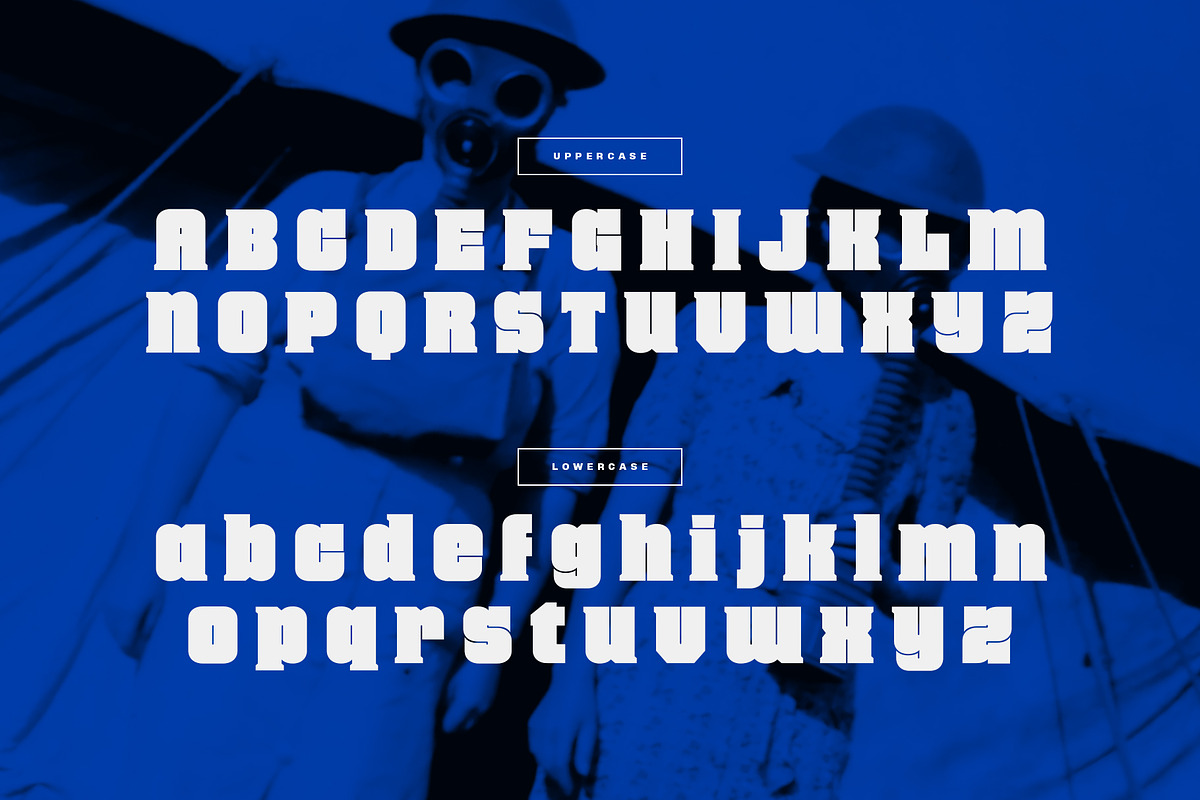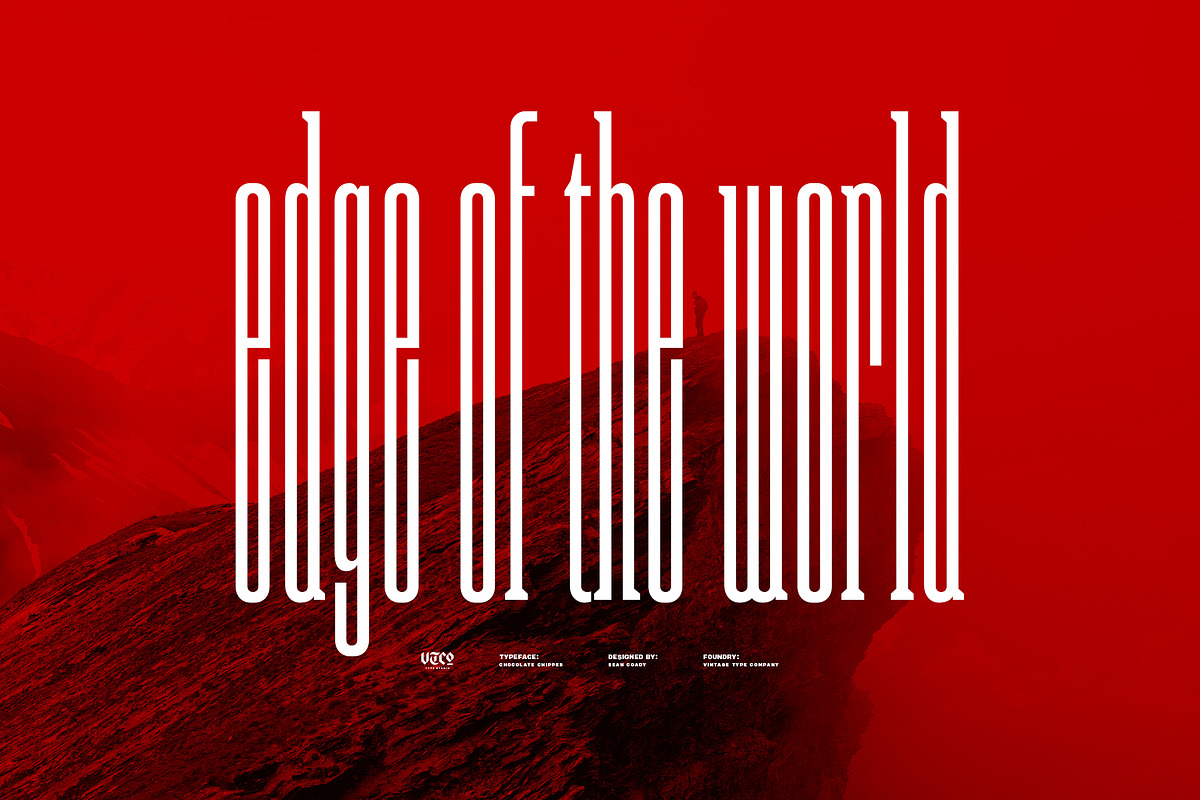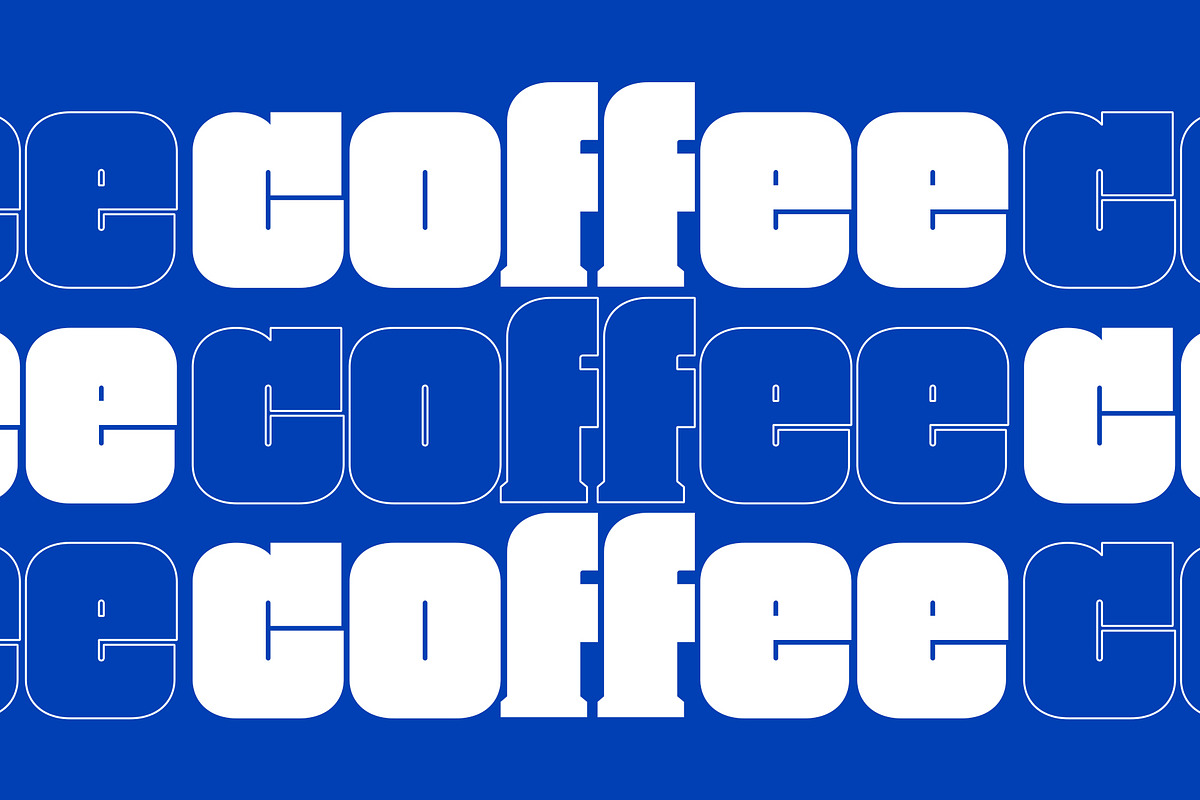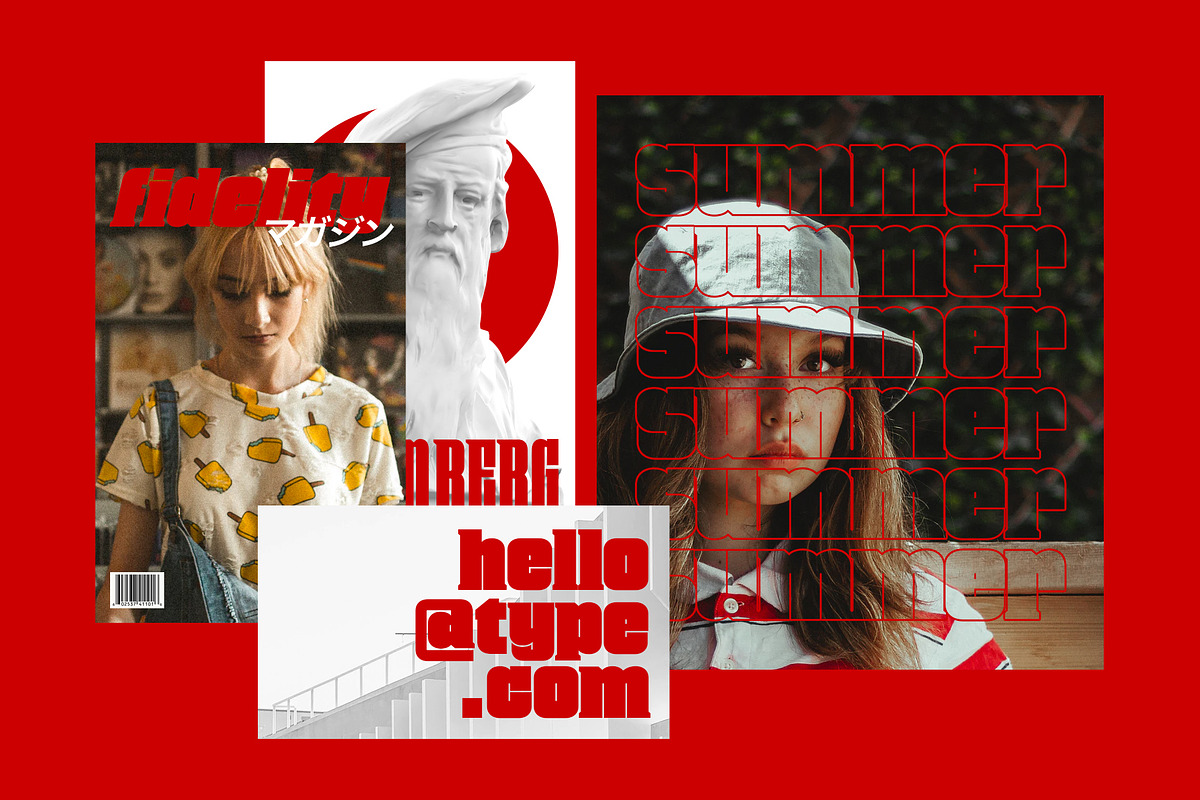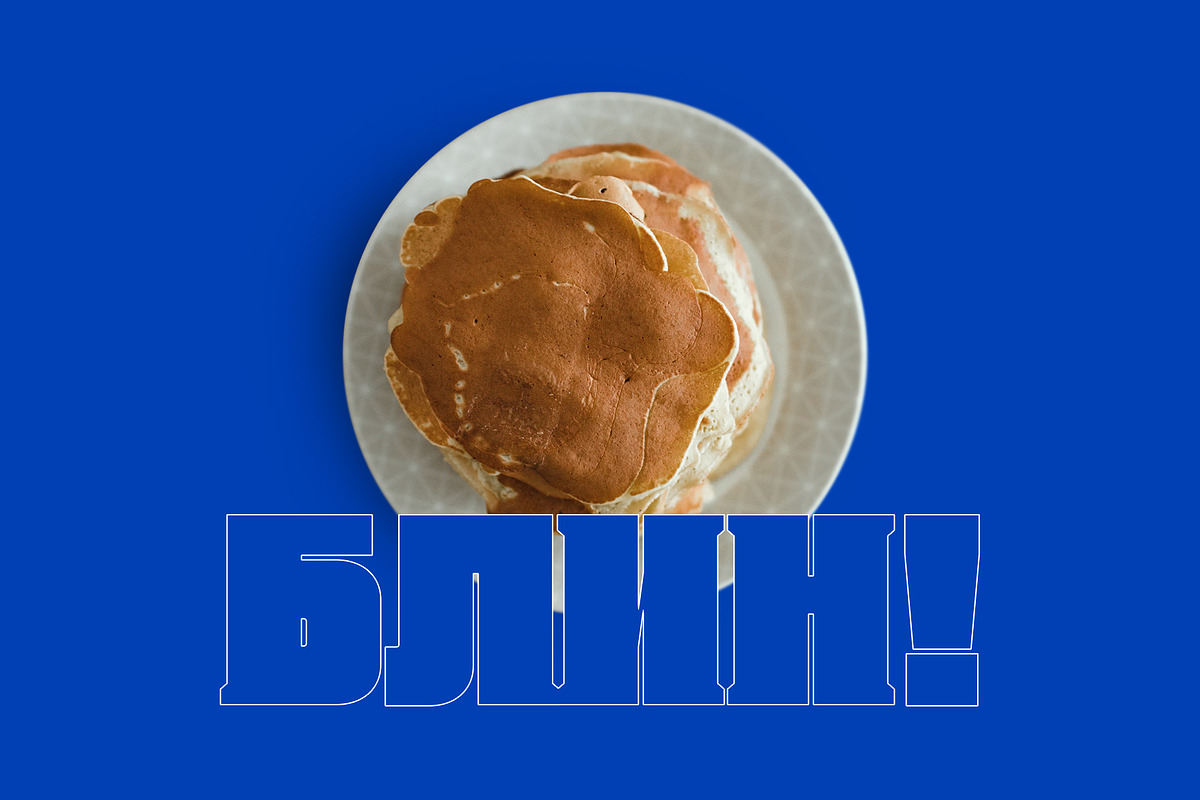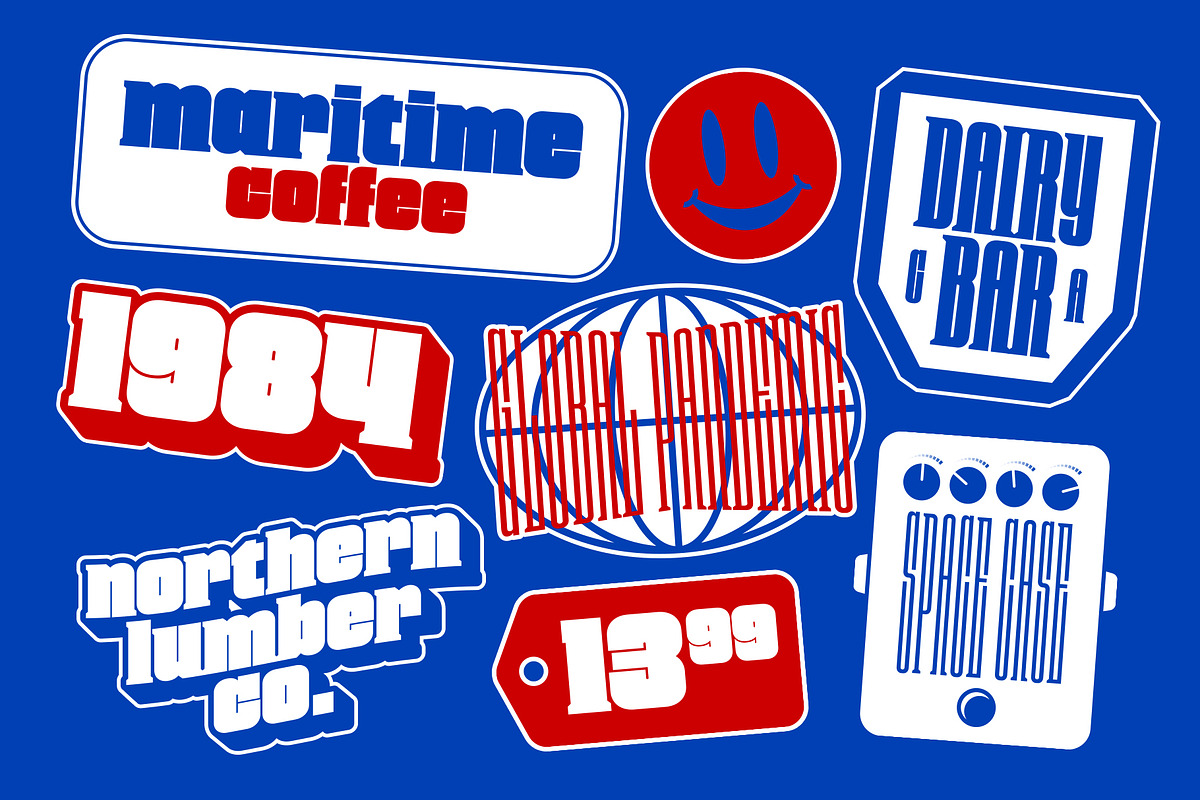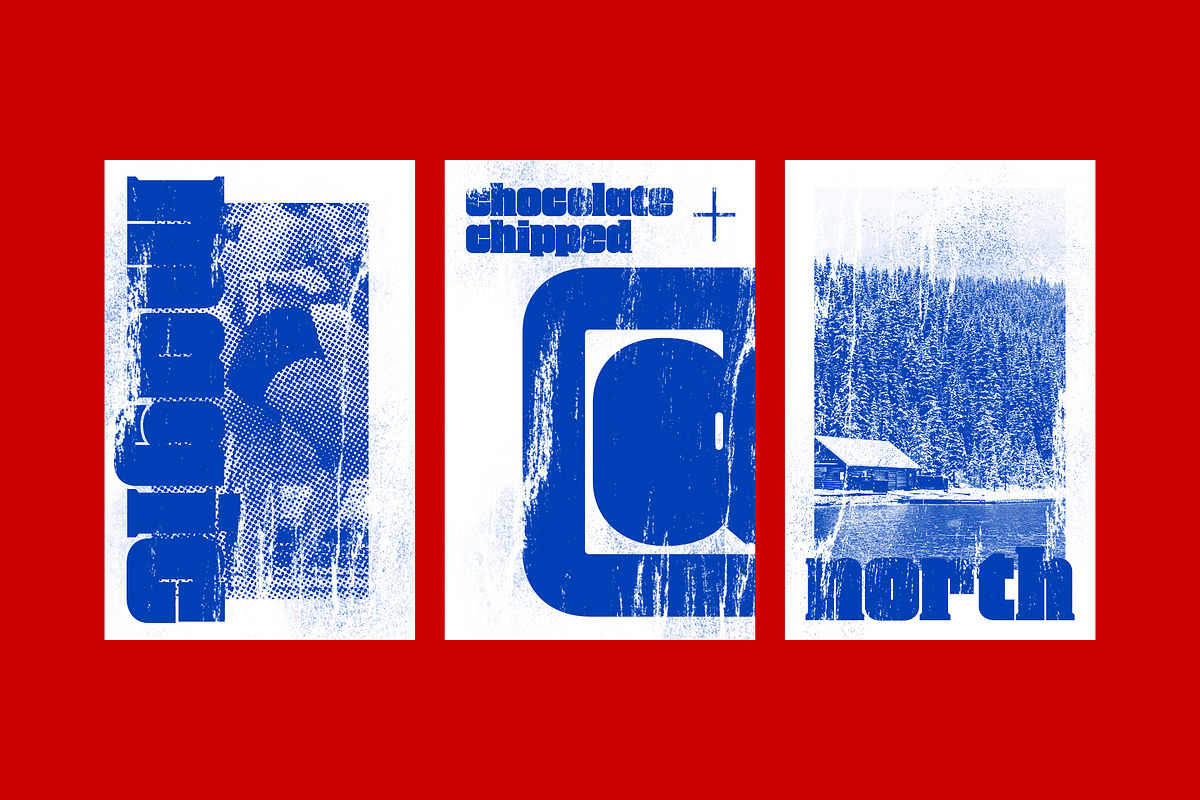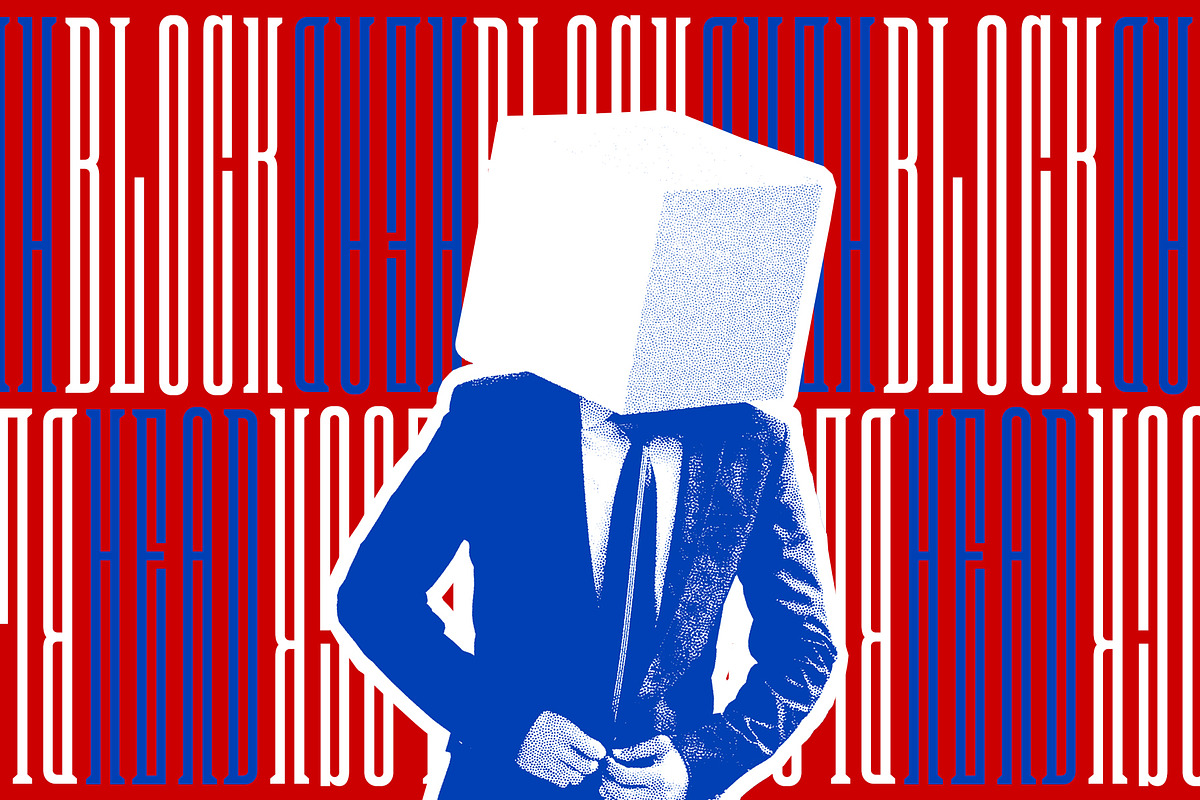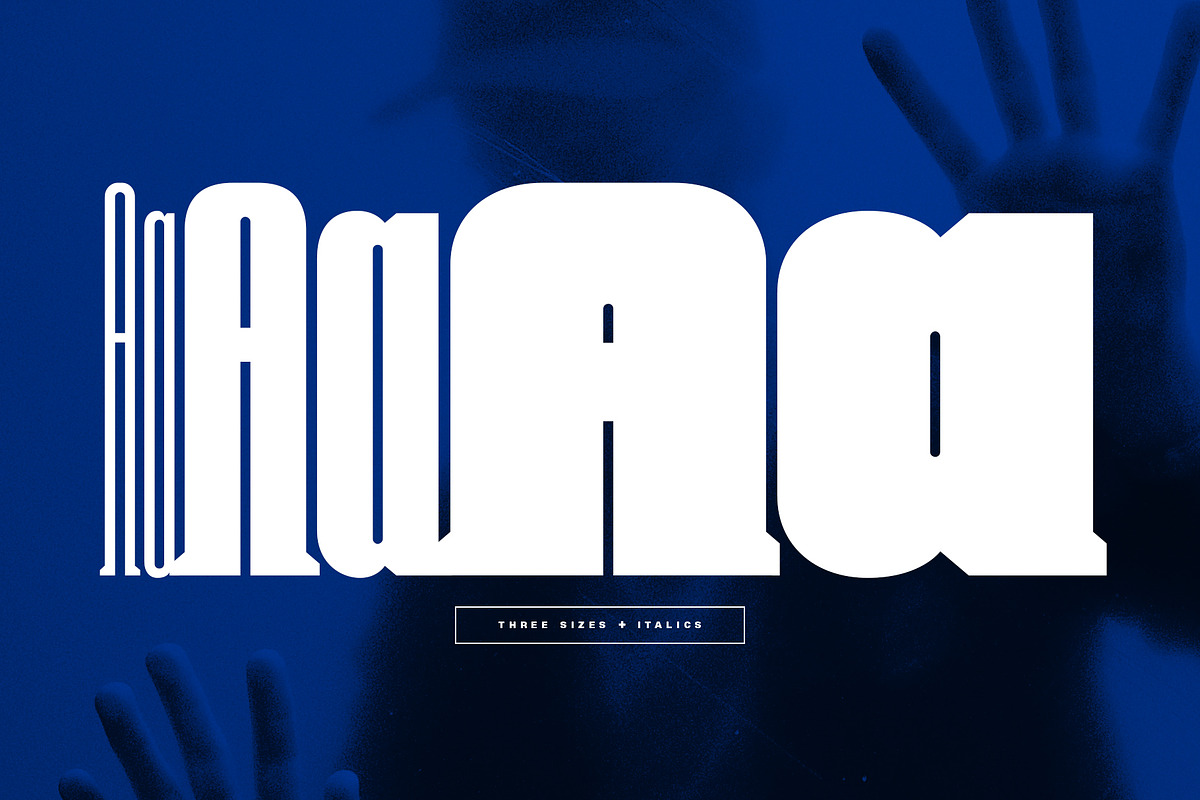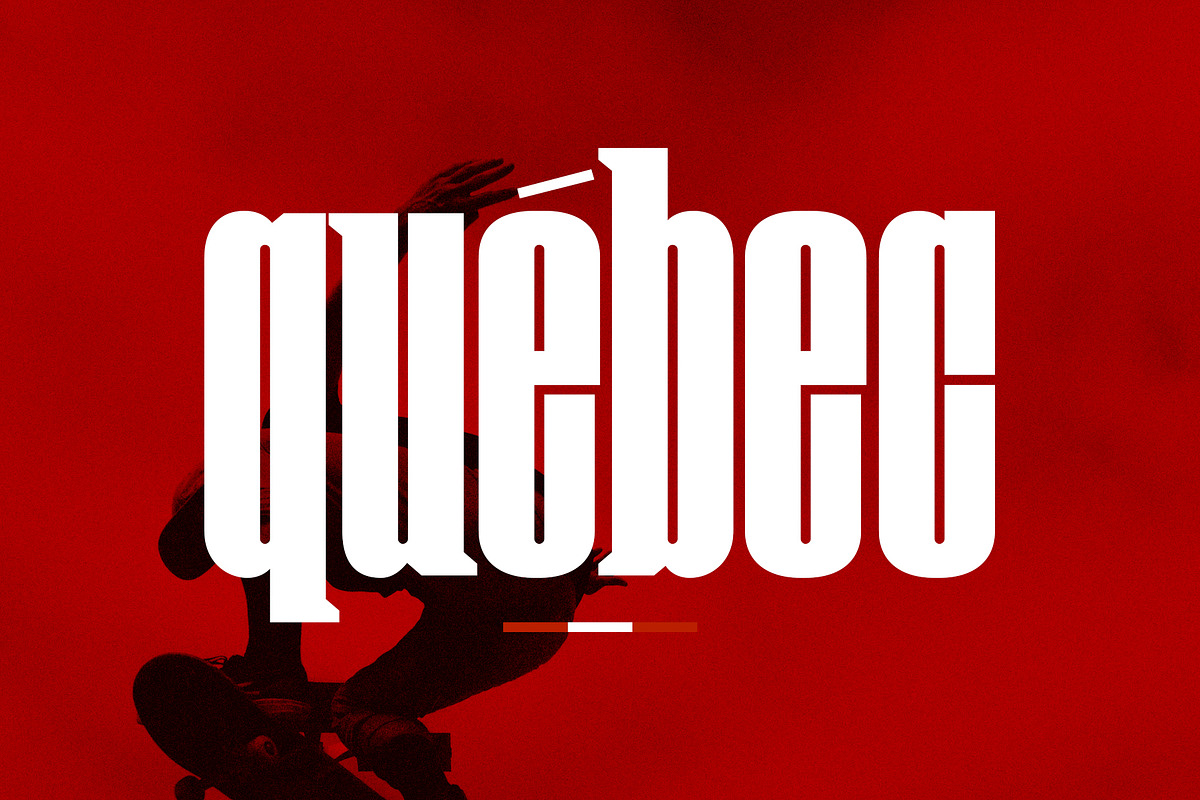
Chocolate Chipped Display Font
VTC Chocolate Chipped is a modern and minimalist homage to exaggerated woodblock typefaces of the past.
It's the perfect little font collection for loud and in-your-face messaging, with 3 different weights in standard and oblique flavours.
Adobe Latin 1 & Basic Cyrillic language support are also included.